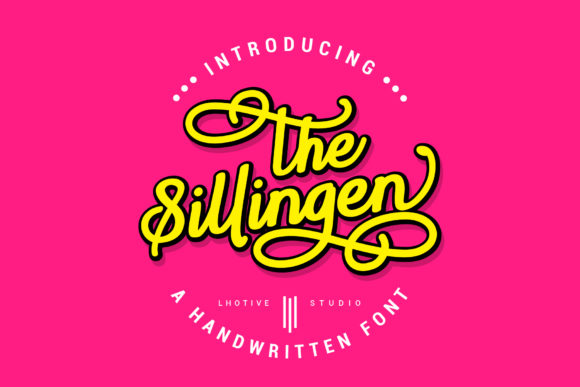
Feast your eyes on Sillingen, the epitome of grace and whimsy in the realm of script fonts. Prepare to be swept off your feet by its charming personality and undeniable allure, for Sillingen is the key to unlocking a world of visual enchantment.
Sillingen's playful nature effortlessly adds a touch of magic to any design endeavor, be it a heartfelt greeting card, an inviting poster, or a website that radiates creativity. Let your imagination run wild as you explore the endless possibilities that await with Sillingen by your side.
Indulge in the timeless elegance of Sillingen, a font that effortlessly transcends the boundaries of time. Its classic lines and refined curves imbue your designs with a sense of sophistication, ensuring they stand the test of time. Prepare to be captivated by the beauty of Sillingen, a font that speaks to the heart and leaves a lasting impression.
Experience the creative liberation that comes with Sillingen, a font that beckons you to break free from the ordinary and embrace the extraordinary. Its unique charm and captivating aura will inspire you to push the boundaries of your imagination, creating designs that captivate and enchant. Unleash your inner artist and let Sillingen guide you towards a world of limitless creativity.